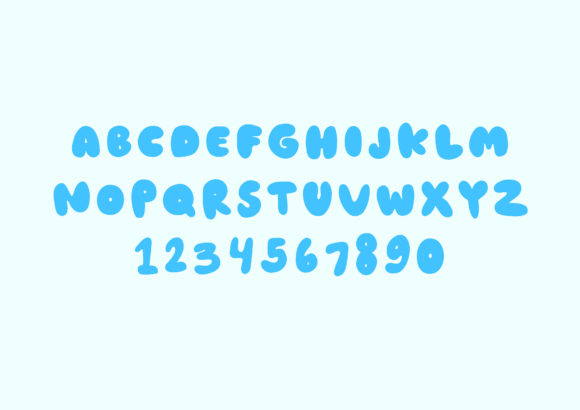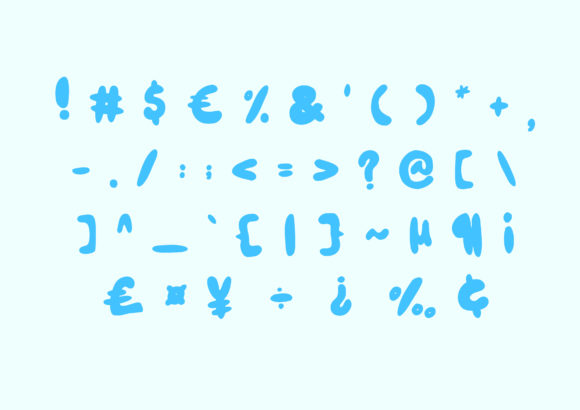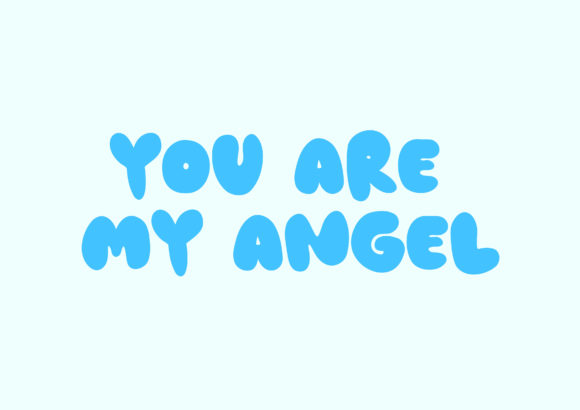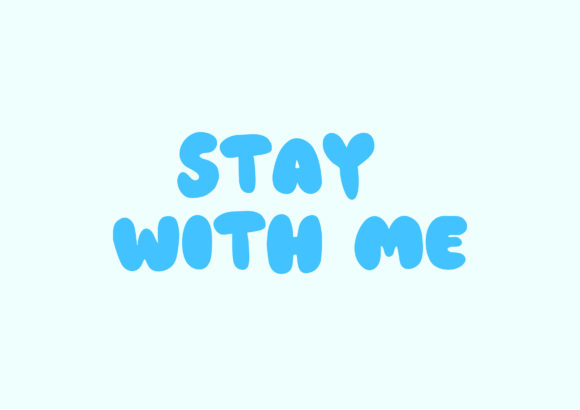
Introduction to Mahija Font
Have you ever stared at a blank canvas, struggling to find the perfect design element to bring your creative project to life? For many designers, this moment is a familiar one – the moment when a single font can make all the difference. That’s where the Mahija Font comes in, a fun and bubbly display font that’s sure to lift your design and add a cheeky touch.
With its high-quality design and transparent background, the Mahija Font is a valuable resource for any designer looking to elevate their work. Whether you’re working on a personal project or a professional design, this free download is an incredible asset to your font library. Its versatility means it can be used across a wide range of topics, making it a go-to choice for designers of all levels.
So why is the Mahija Font so valuable for designers? Simply put, it’s a game-changer. With its unique and playful style, it has the potential to take your design to the next level and make it truly stand out. And the best part? It’s available for free download, making it an accessible resource for designers of all budgets.
Key Features of Mahija Font
- High-quality design resource with a unique, elegant aesthetic, perfect for creative projects.
- Comes with a transparent background, allowing for easy integration into various design elements.
- Features a high-resolution design, suitable for use in both print and digital applications.
- Designed to be highly versatile, with a wide range of font sizes and styles available for creative expression.
- Perfect for designers seeking a high-quality, free font that can elevate their creative project to the next level.
Honest Review: Mahija Font
As a designer, I’m always on the lookout for high-quality design resources that can elevate my creative projects. The Mahija Font caught my eye, and I decided to give it a try.
What works well: ✨ The Mahija Font is incredibly versatile, with a wide range of styles and weights that can be used for everything from body text to headlines. The font is also incredibly legible, making it perfect for digital designs where text is often displayed on small screens.
What works well: ✨ I also appreciated the transparent background option, which made it easy to integrate the font into my designs without worrying about any distracting backgrounds.
Limitations: ⚠️ While the Mahija Font is a high-quality design resource, I did encounter some issues with compatibility on older browsers. Additionally, the free download option is limited to a few styles and weights, which may not be suitable for more complex projects.
Overall, I’m impressed with the Mahija Font, and I would definitely consider using it for future creative projects. While it may have some limitations, its versatility and legibility make it a valuable addition to any designer’s toolkit.
- Wide range of styles and weights
- Legible and easy to read
The Mahija Font is a high-quality design resource that offers a unique and creative touch to your projects. With its elegant and sophisticated style, it’s perfect for a variety of applications.
To get the most out of the Mahija Font, use it with a transparent background to add a touch of elegance to your designs. You can also experiment with different font sizes and colors to create a unique look.
The Mahija Font is perfect for creative projects, such as:
- Presentation slides
Compared to Mahija Font, Alex Brush Font has a more refined and luxurious feel, making it suitable for high-end designs. While Mahija Font is more playful and fun, Alex Brush Font is perfect for creating a sense of sophistication and refinement.
Pacifico Font is a beautiful, high-quality script font that is perfect for creative projects that require a touch of warmth and elegance. It features a transparent background, making it ideal for overlaying on images or videos. This font is ideal for branding, wedding invitations, and other design projects that need a sense of sophistication and style.
What is the recommended resolution for using the Mahija Font?
The Mahija Font is designed to be used at high resolutions, making it perfect for large-scale prints, billboards, or digital displays. For optimal results, we recommend using the font at a resolution of at least 300 DPI (dots per inch). This ensures that the font remains crisp and clear, even when enlarged or used in high-resolution applications.